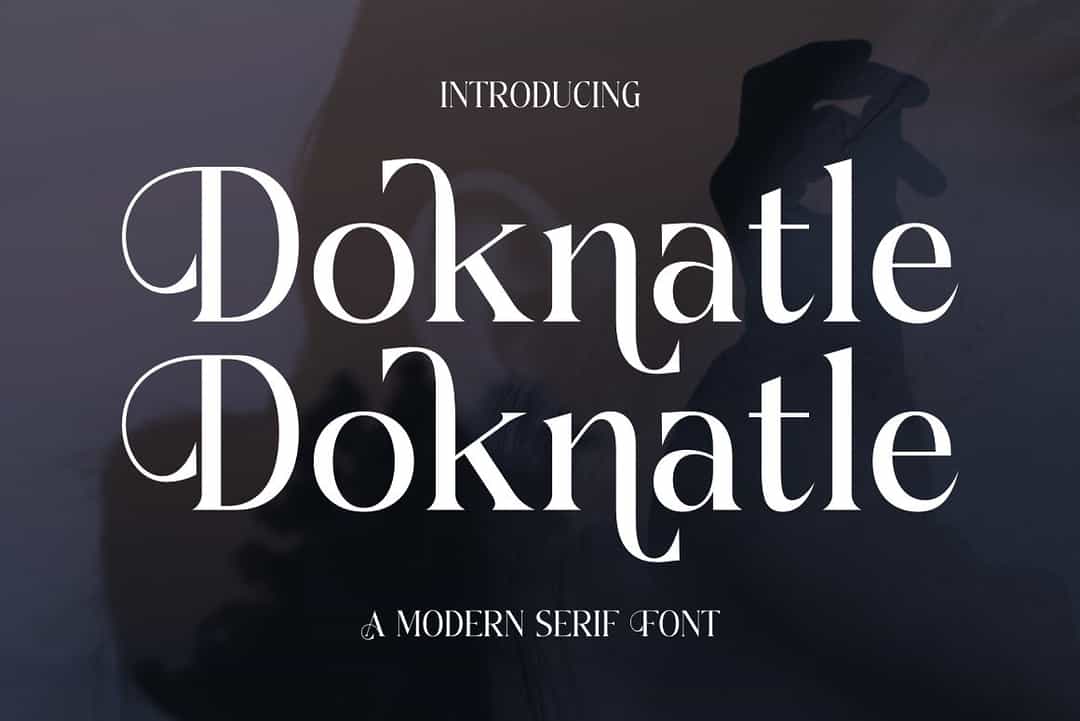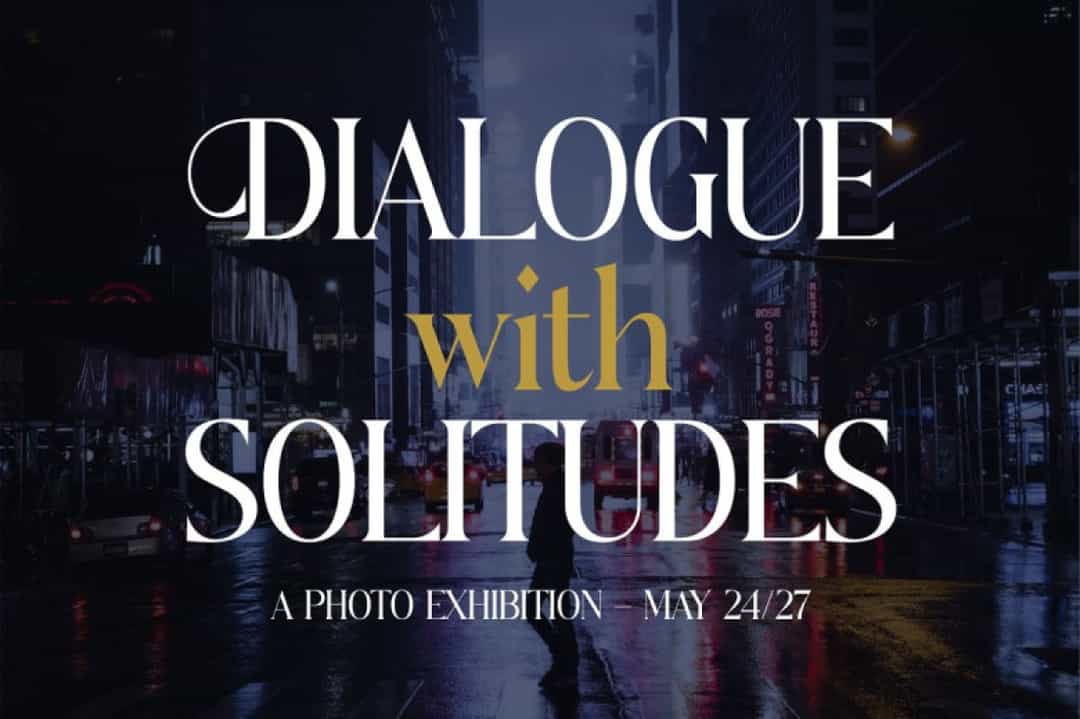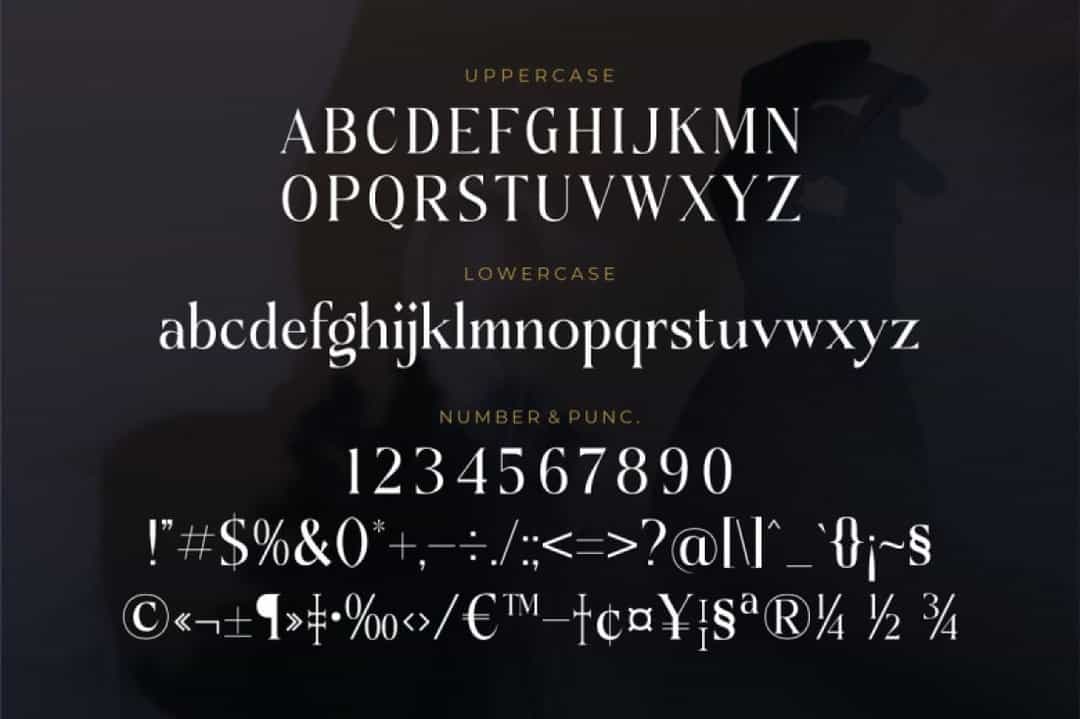
Doknatle is an elegant serif typeface designed with modern and classic elements. Perfect for creating stylish logos, movie or book title designs, fashion brand clothing designs, magazine letters, quotes and much more, Doknatle makes an impression wherever it goes.